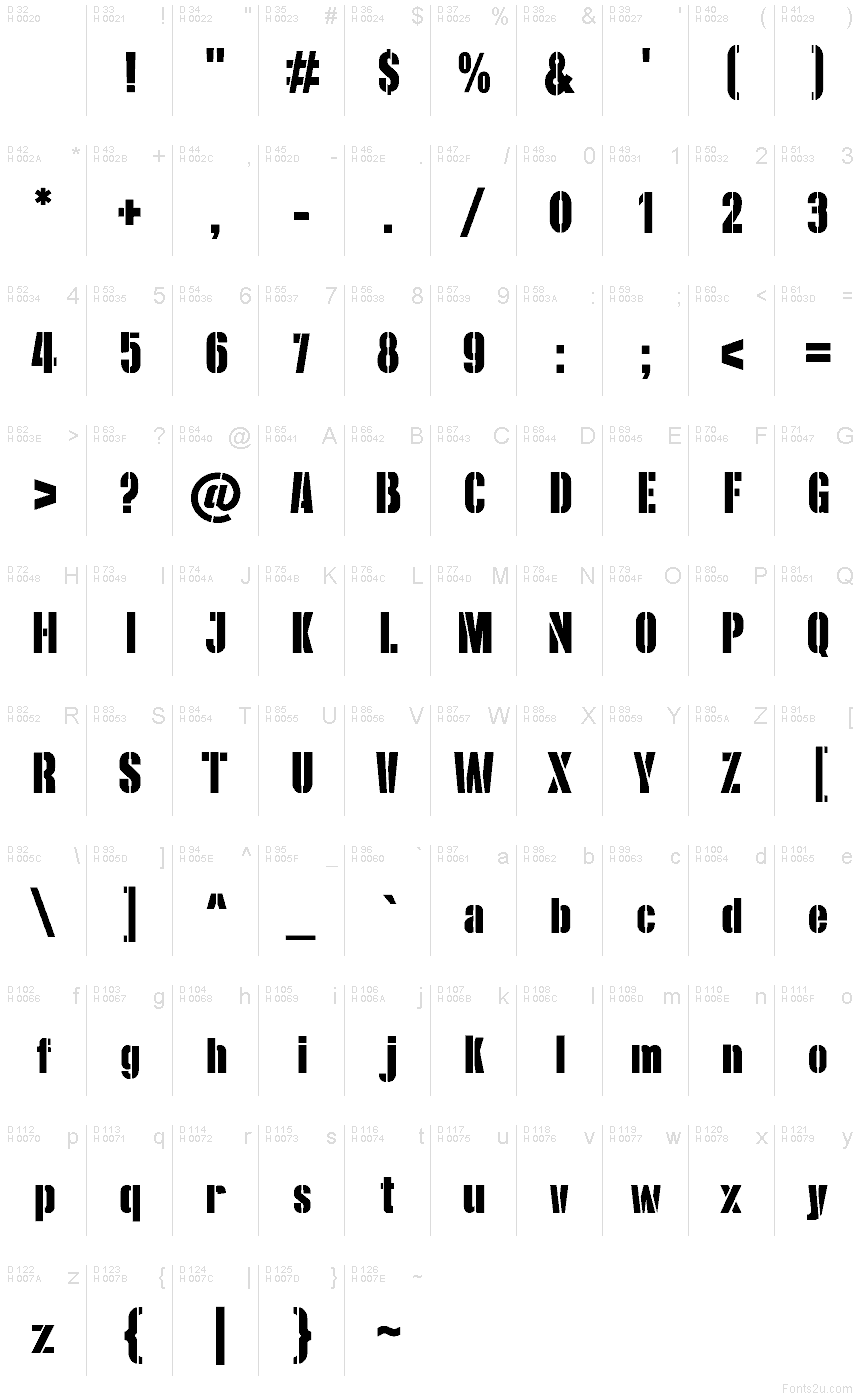
Overlord Stencil Regular
Overlord Stencil font by Galdino Otten Fonts is a free display font featuring a bold weight and condensed width. Inspired by military influences, this typeface has a stencil style which adds to its strong presence and utilitarian feel. Although intentionally rugged, the font has a polished industrial aesthetic for articulate designs.
The uniqueness of Overlord Stencil makes it particularly suitable for use in headlines, posters, and logotypes. It can also bring more originality to signage projects, book covers, product packaging designs such as food labels or stamps presented on cardboard packages. Utilize it further on typography-based artwork down to website and app design!